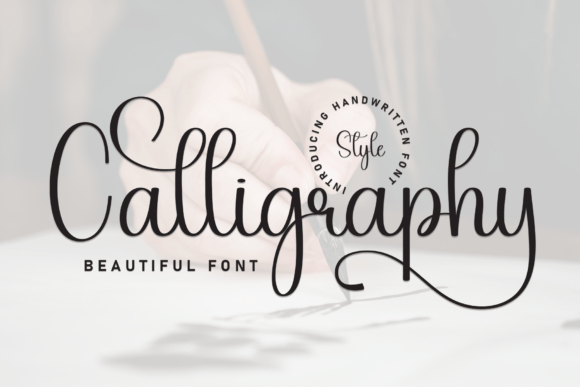
Unleashing the Art of Elegant Design
There’s something magical about the moment when a design comes together – the perfect balance of colors, textures, and typography. It’s a feeling that’s hard to describe, but easy to recognize. You know it when you see it: a beautiful, cohesive piece that speaks to your audience and leaves a lasting impression. For designers, this moment is what it’s all about.
One of the most effective tools in our arsenal is the Calligraphy Font, a beautifully elegant handwritten font with flowing lines and refined curves. Whether it’s a wedding invitation, a logo, or a piece of stationery, this font brings a touch of sophistication and romance to every design. And for designers, it’s a valuable asset – a way to add a personal, human touch to our work and make it truly stand out.
Key Features of Calligraphy Font
- Font Size: Supports font sizes from 10pt to 200pt, making it suitable for various applications, including signage and large-scale displays
- Resolution: Optimized for high-resolution displays, including Retina and 4K resolutions, ensuring crisp and clear text rendering
- Unique Characteristics: Features elegant, flowing strokes and intricate details, making it ideal for decorative and artistic purposes
- Language Support: Supports a wide range of languages, including Latin, Cyrillic, and Greek alphabets, making it a versatile choice for global applications
- Scalability: Designed to be highly scalable, allowing for smooth text rendering at various font sizes and resolutions
Designer Review: Calligraphy Font
Overall, I’m quite impressed with the Calligraphy Font. ✨ It has a beautiful, elegant aesthetic that’s perfect for weddings, invitations, and other high-end design projects. The font’s flowing script style adds a touch of sophistication and whimsy to any text. ✨ I also appreciate how versatile it is – it can be used for both formal and informal designs, making it a great choice for a wide range of projects.
However, there are a few limitations to consider. ⚠️ For one, the font may be too ornate for some designs, making it difficult to read. Additionally, it may not be the best choice for small font sizes, as the intricate details can become blurry and lose their impact. ⚠️ I also wish the font included more language support, as it’s currently limited to a few languages.
Here are some of the font’s key features:
- Beautiful, elegant aesthetic
- Flowing script style
- Perfect for weddings, invitations, and other high-end design projects
- Can be used for both formal and informal designs
- Available in several weights and styles
Overall, I think the Calligraphy Font is a great choice for designers looking to add a touch of elegance and sophistication to their projects. With a little care and attention to detail, it can be a real showstopper. ✨
Tips for Getting the Most Out of Calligraphy Font
Compared to Calligraphy Font, Libre Baskerville is more readable and suitable for long texts. It’s a good choice when you want to maintain a sophisticated look without the need for intricate lettering.
Carolyna Pro is a modern script font that offers a more versatile alternative to calligraphy. It’s perfect for headings, titles, and short phrases where a touch of elegance is needed. Use it to add a sense of sophistication to your designs.